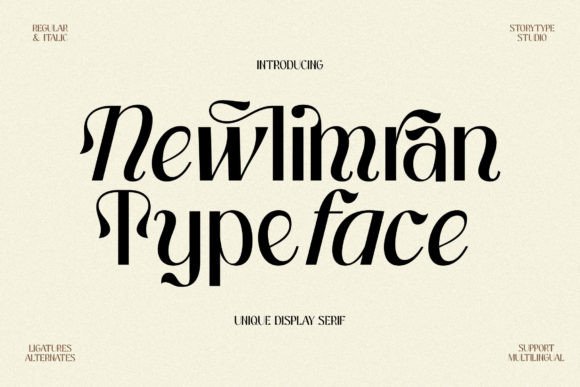
Introducing Newlimran Font - The Epitome of Elegance and Luxury in Typography
In the realm of digital artistry, where words take shape and meaning, lies a font that captivates hearts and ignites imaginations - Newlimran Font. This modern display typeface, crafted with meticulous attention to detail by the renowned Storytype Studio, is a masterpiece that elevates your designs to new heights of sophistication and allure.
Newlimran Font possesses an innate ability to transform the ordinary into the extraordinary. Its graceful curves and sharp edges dance in perfect harmony, creating a visual symphony that commands attention and leaves a lasting impression. Whether you're a seasoned designer seeking to add a touch of exclusivity to your creations or a budding entrepreneur seeking to make a statement, Newlimran Font is the perfect companion for your creative journey.
With its timeless appeal, Newlimran Font transcends the boundaries of genre and style. It seamlessly adapts to a myriad of applications, from elegant logos that exude professionalism to captivating book or movie titles that spark curiosity and intrigue. Fashion brands, magazines, and clothing lines alike find solace in the versatility of Newlimran Font, as it effortlessly elevates their designs with an air of sophistication and luxury.
But Newlimran Font's allure extends far beyond its aesthetic prowess. It is a font that speaks to the soul, evoking emotions and stirring imaginations. Its ability to capture the essence of a brand or message is unparalleled, making it the perfect choice for those seeking to create a lasting impact.
So, embark on a creative odyssey with Newlimran Font, and let your designs blossom into works of art. Experience the joy of crafting logos that radiate elegance, book titles that ignite curiosity, and fashion designs that exude luxury. With Newlimran Font as your trusted ally, the possibilities are endless.